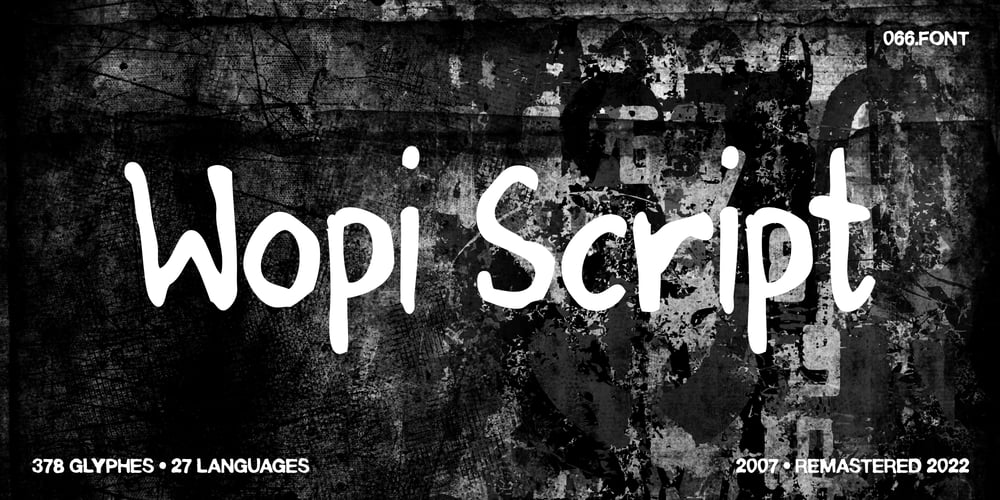
Wopi Script No 3 Font Family was designed by Piotr Wozniak and published by 066.FONT. Wopi Script No 3 contains 1 styles and family package options. Wopi Script No 3 is a display font in which each letter has been handwritten, giving it an authentic and original character. It exudes a varied and extravagant style, and with its daring and sophisticated letterforms, Wopi Script No 3 attracts attention and gives projects a touch of nonchalance. It is ideal for creative projects such as posters, invitations or branding materials, where a striking and distinctive text finish is sought that stands out. Remastered in 2022.